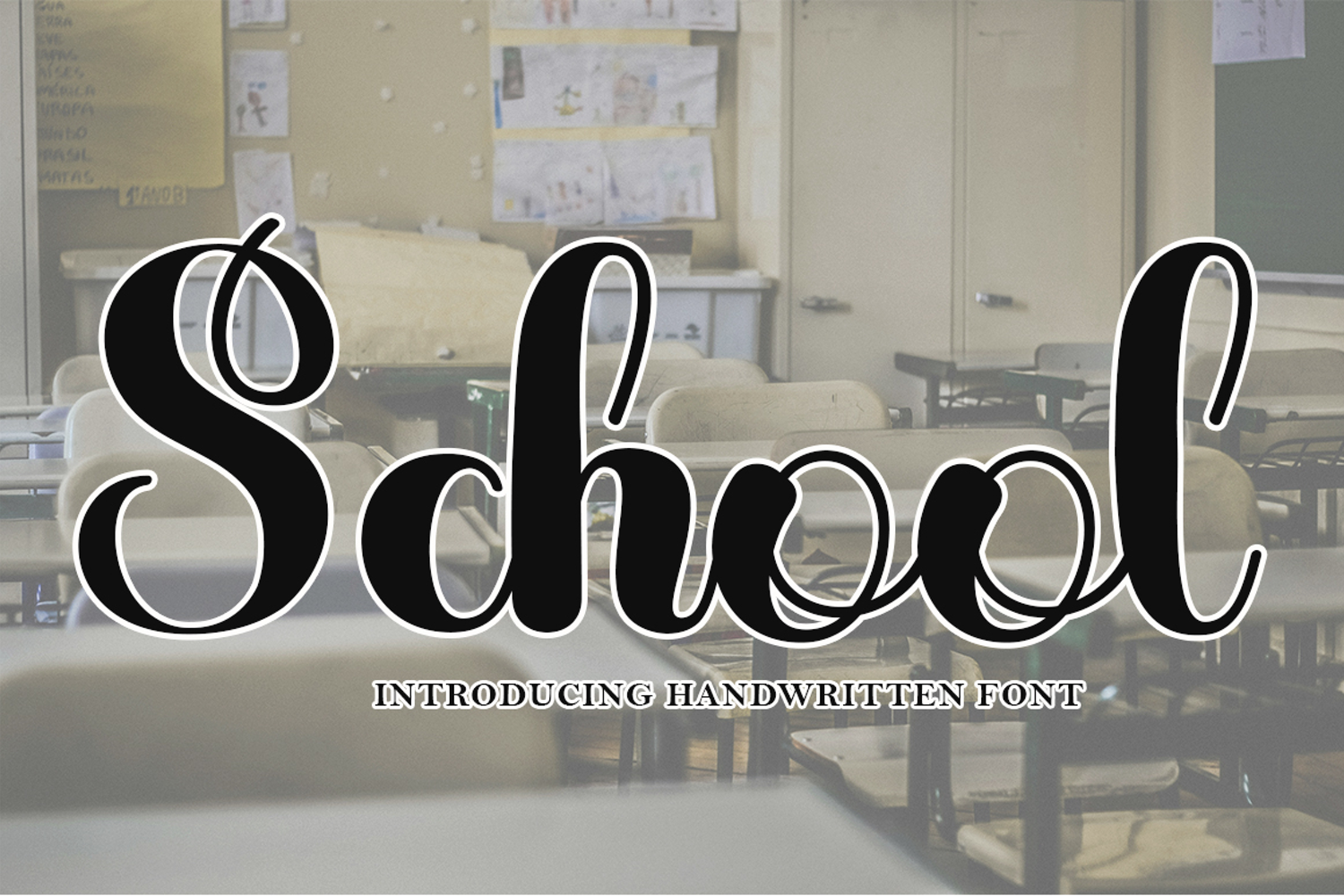
School is a handwritten font with exquisite character changes, a kind of classic decorative copperplate script with a modern touch, designed with meticulous detail for an elegant style.
School is appealing because it is refined, clean, feminine, sensual, glamorous, simple, and highly legible, thanks to its many luxurious letter connections. This classic style is perfect for various formal applications such as invitations, labels, restaurant menus, logos, fashion, makeup, stationery, novels, magazines, books, greeting/wedding cards, packaging, labels, or all kinds of advertising needs. . . . . .